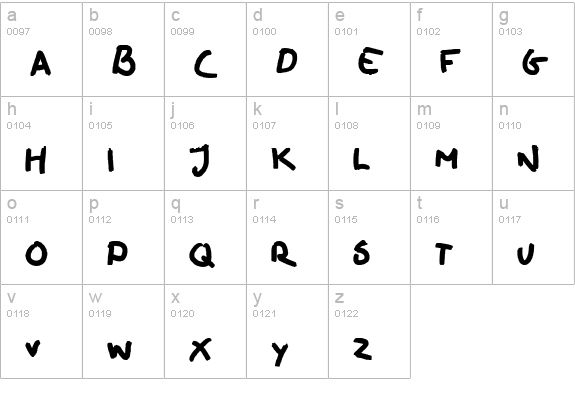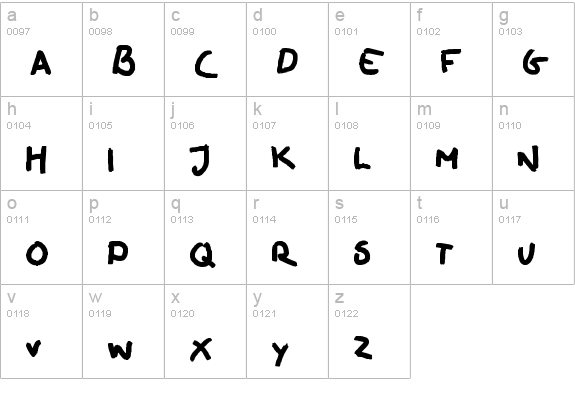
oilhand Font Details
Oilhand font is a unique and eye-catching typeface that exudes a sense of creativity and elegance. With its bold strokes and stylish curves, this font is sure to make any design project stand out. The best part is that Oilhand font is completely free to download at FontsMarket.com. Whether you're working on a poster, logo, or website, this versatile font will add a touch of sophistication to your work. Embrace the beauty of Oilhand font and elevate your designs to the next level with its stunning and refined aesthetic.